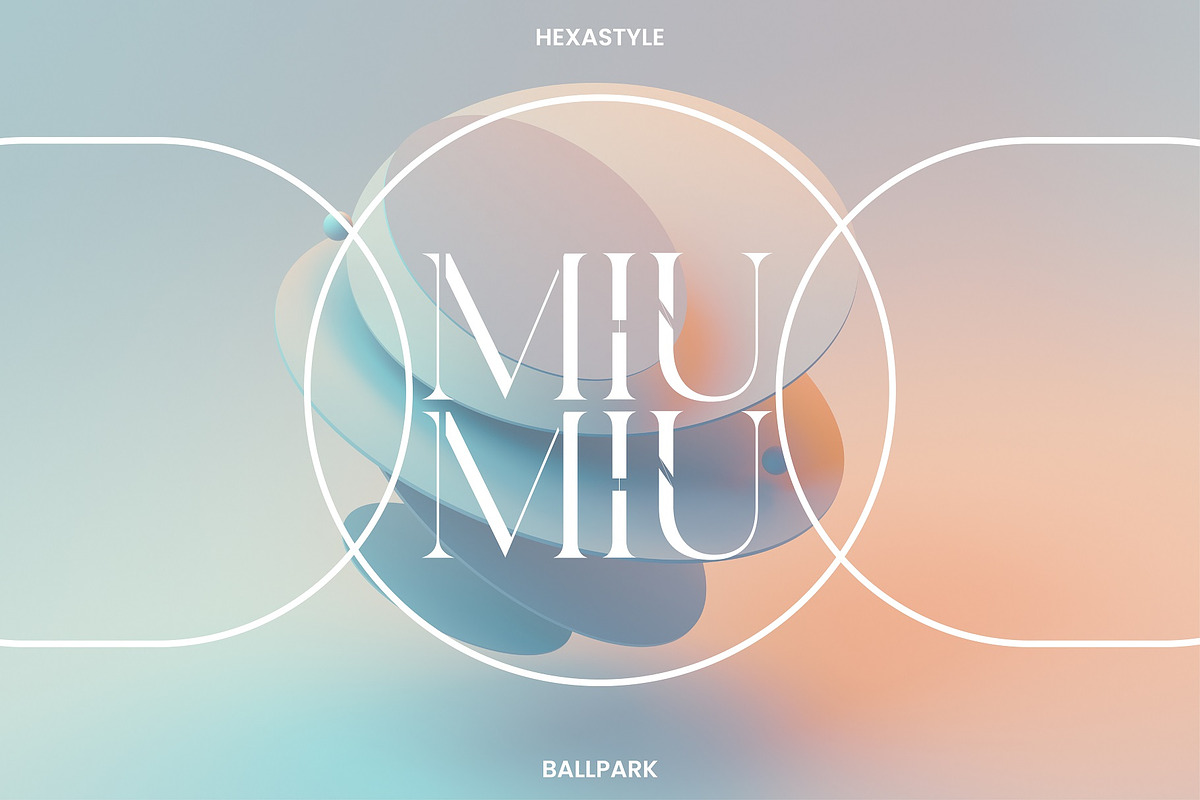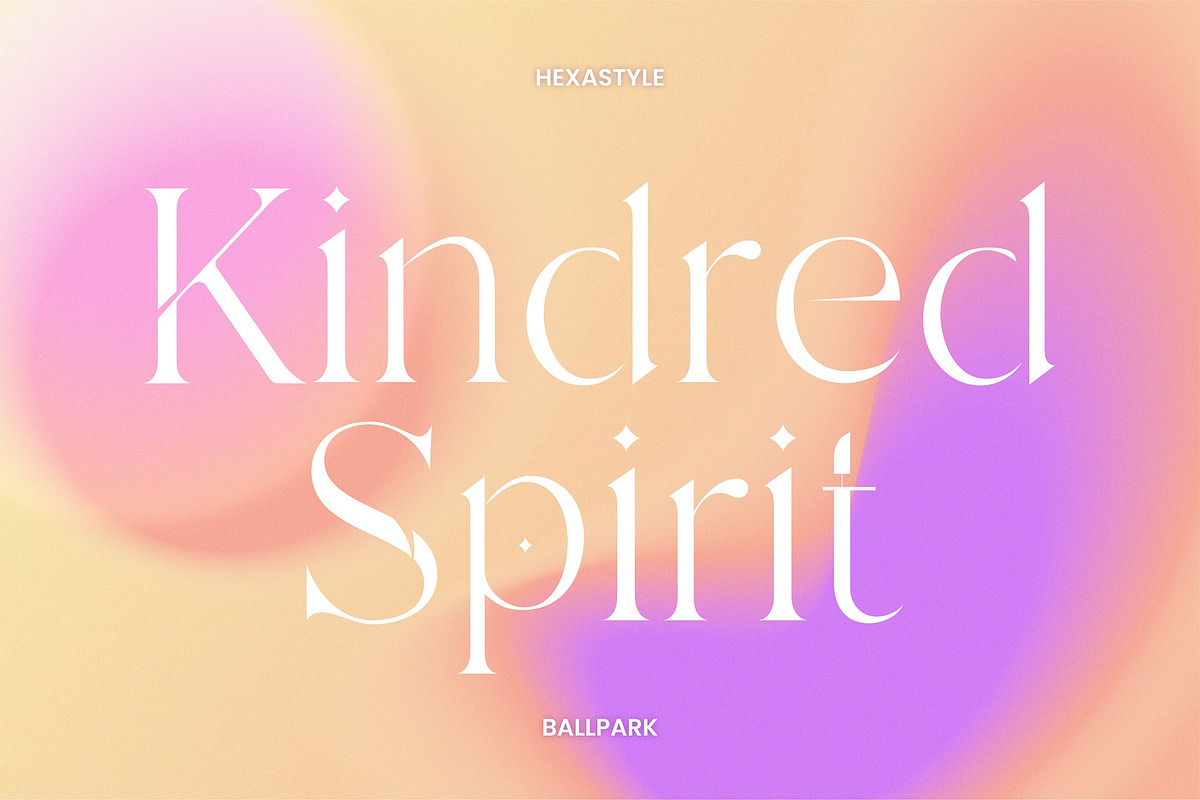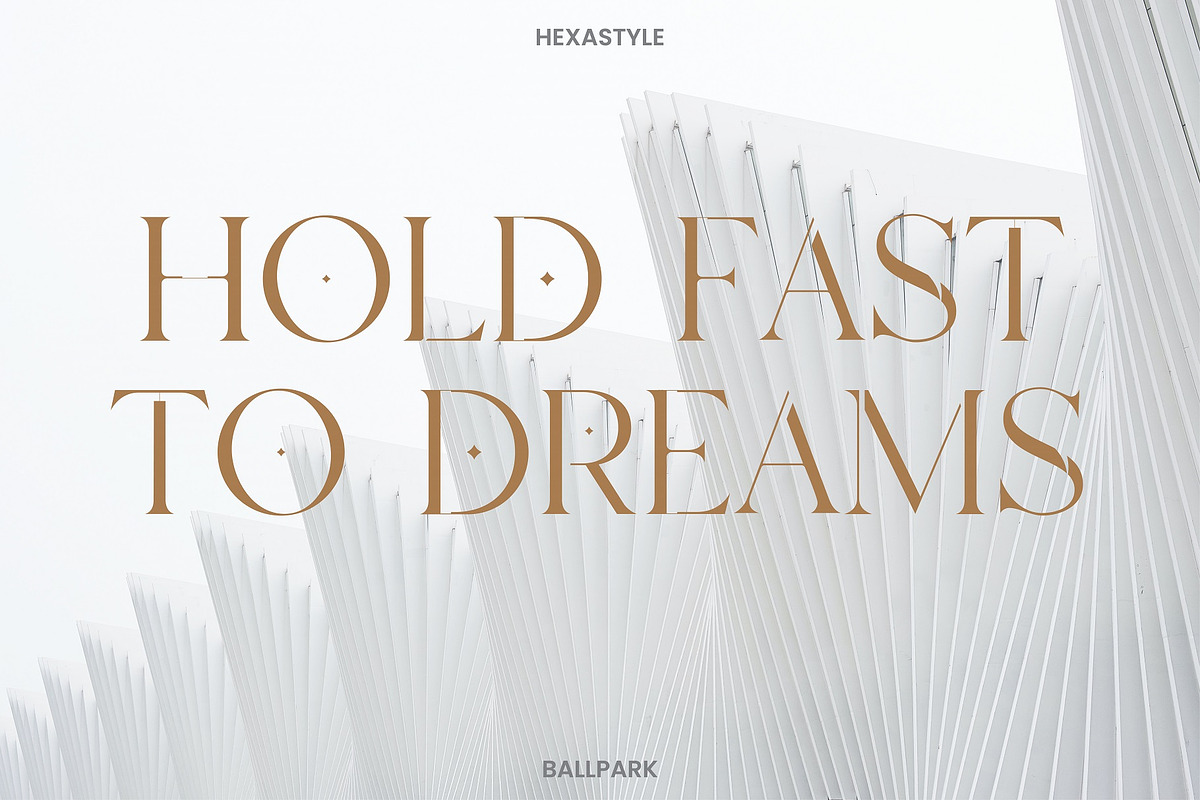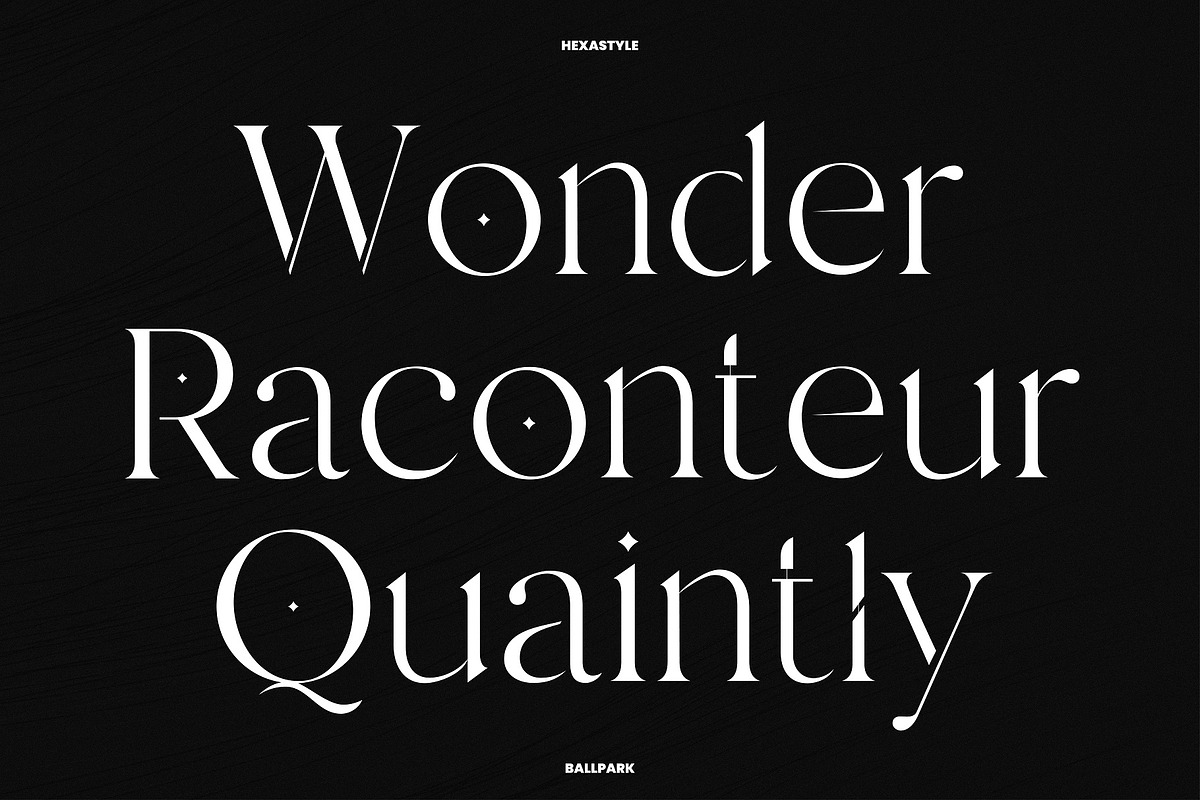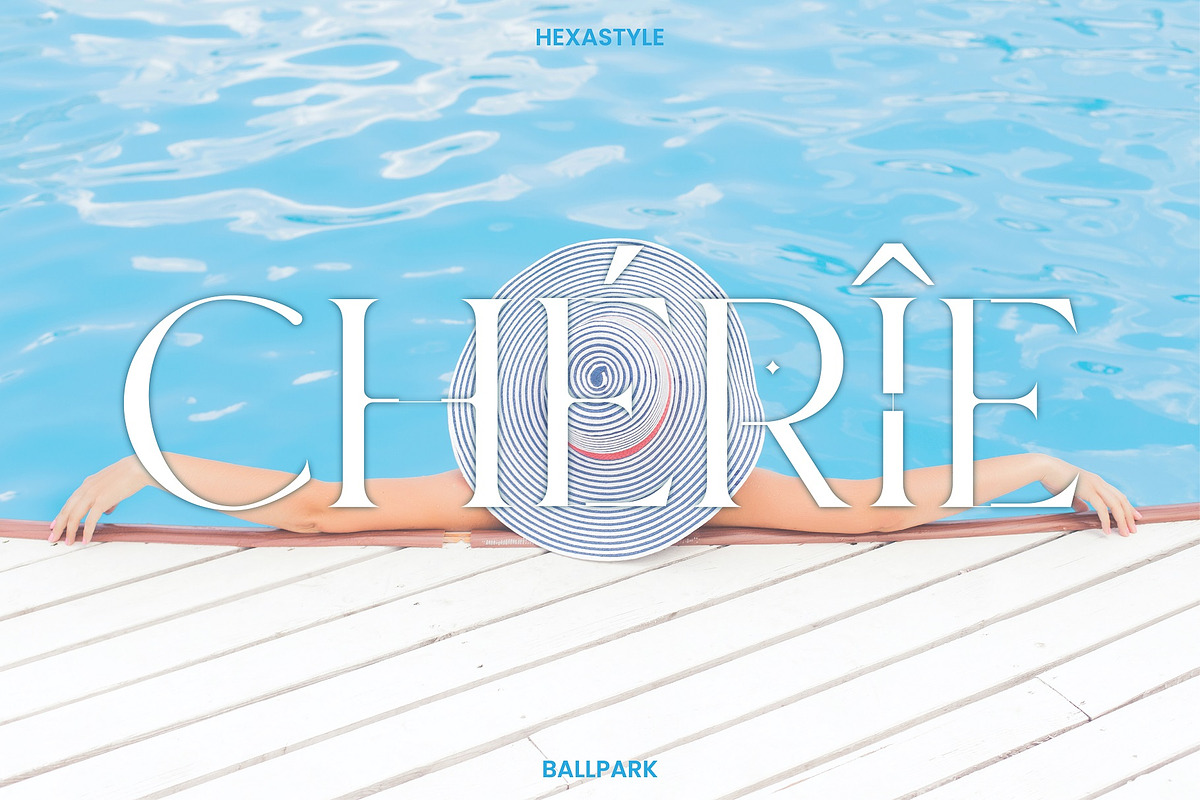
Ballpark is a playful yet elegant serif font. It teases your eyes with its curves yet still able to maintain its classy composure. It’s perfect for logos & branding, photography, invitations, watermarks, product designs, stationery, wedding designs, labels, product packaging, and much more!